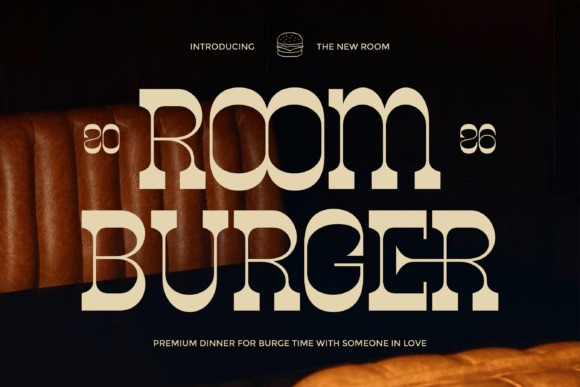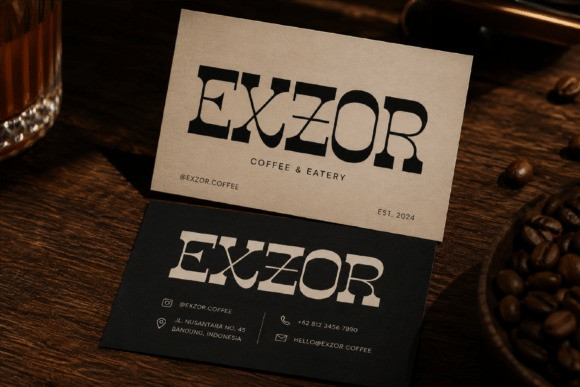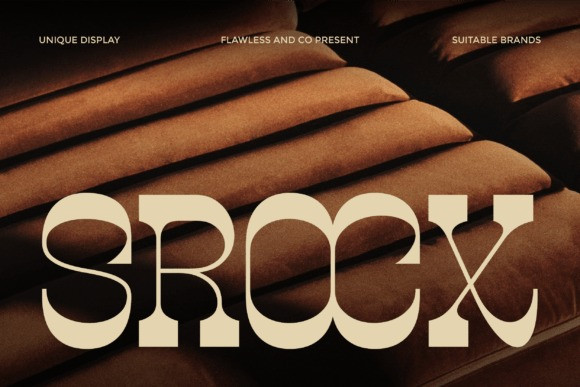
Srocx Font
Srocx Font is a unique vintage western display font designed to combine bold strength with distinctive character. Featuring sturdy slab serifs, creative letterforms, and eye-catching details, Srocx delivers a powerful visual presence that instantly stands out. Its unique construction gives the font a memorable personality while maintaining excellent readability, making it perfect for designs that demand both impact and originality.